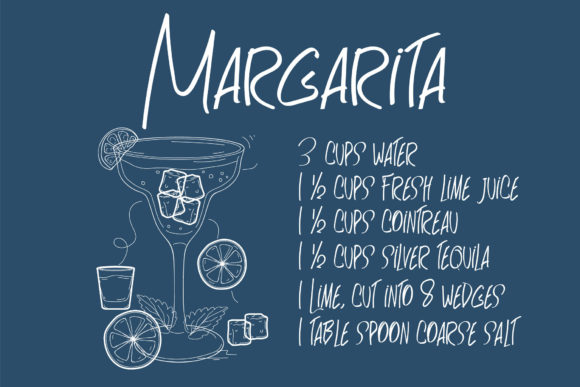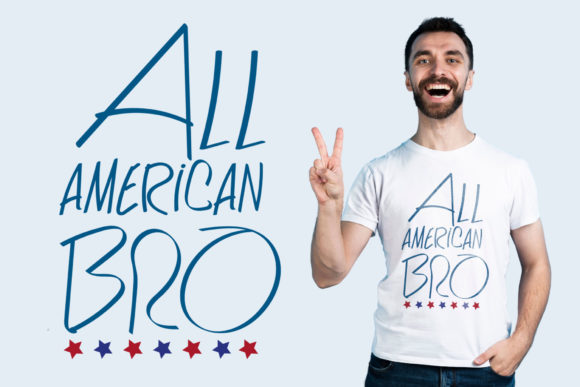
Cocktail Font
db-ku.com - Script & Handwritten -- Cocktail is a friendly, neat and informal script font. No matter the topic, this font will be an incredible asset to your fonts’ library, as it has the potential to elevate any creation.